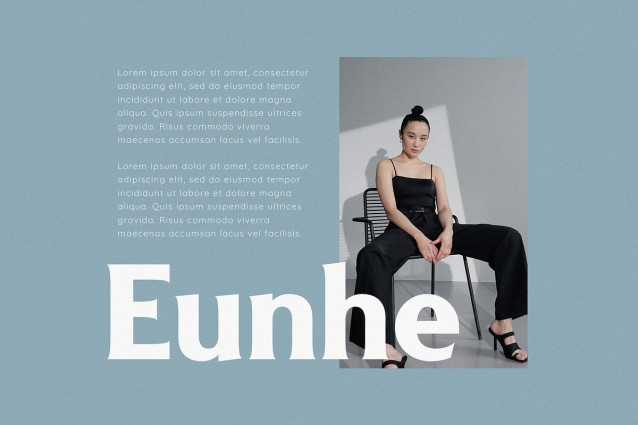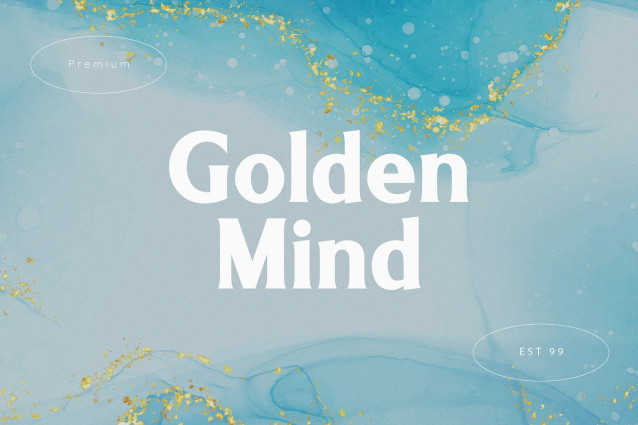
Enbora Font
Enbora Font is a modern and classy typeface, best used as a display for headings, logos, branding, magazines, product packaging and invitations. Enbora come with clean lines and smooth curves give any project an extra touch of class.